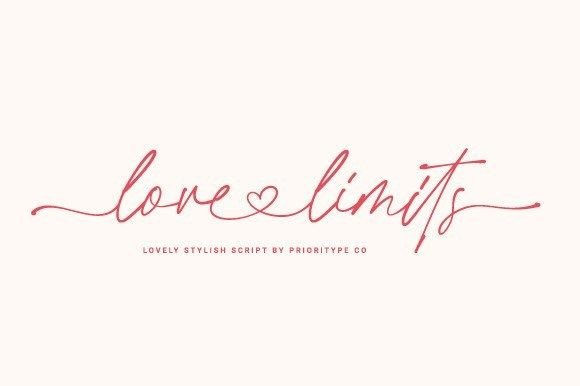
Journey into the realm of artistry and self-expression with Love Limits, a remarkable script font that sparks your creativity and ignites your passion for design. Inspired by the allure of inked masterpieces, this font embodies the enchanting essence of tattoos, capturing the raw emotion and profound beauty embedded within each stroke. Immerse yourself in a world of boundless possibilities as Love Limits dances gracefully across your digital canvas.
Unleash the captivating power of this handwritten font, meticulously crafted to emulate the artistry of skilled calligraphers. Each letter flows seamlessly, intertwining like vines around a trellis, exuding an aura of elegance and grace. Witness the harmonious interplay of thick and thin lines, creating visual depth and texture that commands attention. Love Limits is a symphony of visual artistry, evoking a sense of nostalgia and timeless charm.
With Love Limits, you're not just downloading a font; you're embarking on a creative odyssey, where your imagination knows no bounds. Allow this font to infuse your designs with a touch of heartfelt emotion, whether it's a heartfelt wedding invitation, a captivating logo design, or an eye-catching social media post. Its versatility extends seamlessly across a myriad of projects, from personal branding ventures to enchanting promotional campaigns.
Love Limits is more than just a collection of glyphs and swashes; it's an invitation to express your individuality and make a lasting impression. Its PUA encoding ensures effortless access to a treasure trove of artistic elements, empowering you to unleash your creative prowess. Dive into a world of infinite possibilities, where every design tells a story and every stroke carries a profound message.
Embrace Love Limits as your creative companion, the catalyst that ignites your passion and transforms your ordinary designs into extraordinary masterpieces. Prepare to captivate hearts and leave an indelible mark on the world of visual communication.